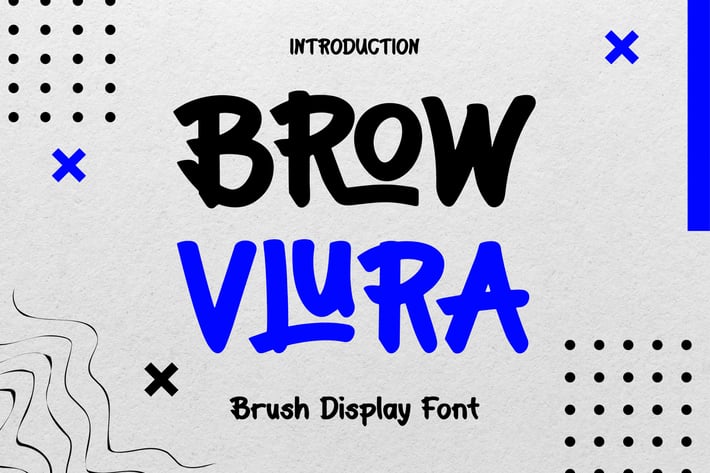
BROW VLURA - Brush Display Font
BROW VLURA is a unique display typeface perfect for titles, large text, branding, logotypes & graphic design purposes such as posters, pamphlets, and advertisements. This letter font can be a great choice for creating amazing logos, promotional content, and marketing presentations that can bring uniqueness and freshness at its best.